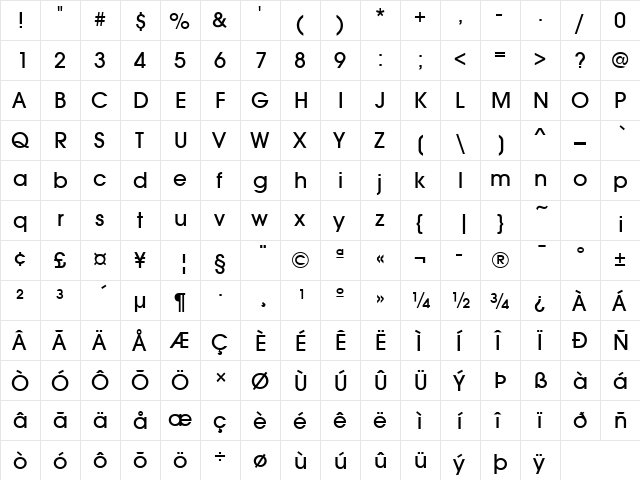
AvalonTwo Regular
Design Context for AvalonTwo Typeface
AvalonTwo is a composed and adaptable typeface that performs quietly and consistently across a wide range of design contexts.
Pro Tip: Use AvalonTwo in both headline and body roles to test its range before committing to a single application.